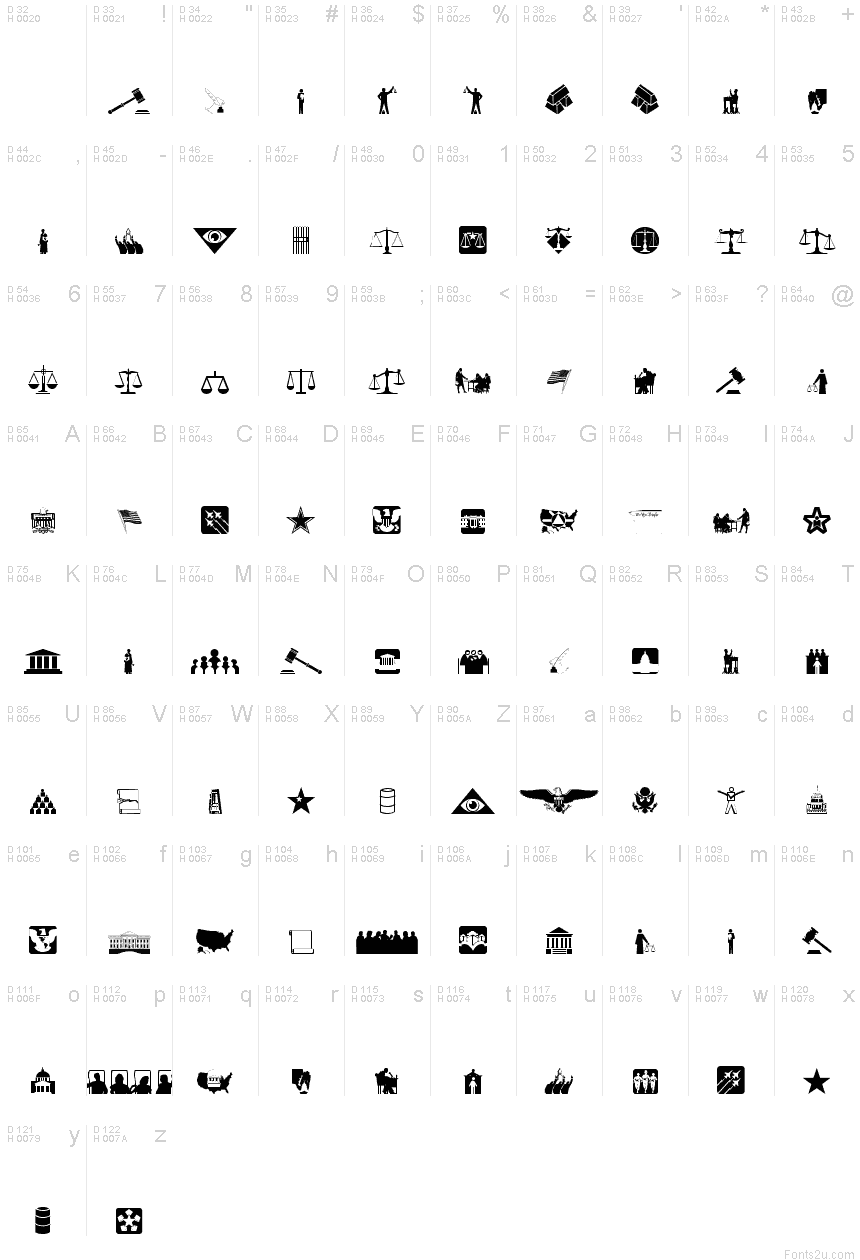
Law & Order
Law & Order font by Iconian Fonts is a free law-themed dingbat font with civic and justice symbols, including court and police-style motifs, an eagle seal, and other official markers. The set has a strong emblematic feel, with framed icons and compact silhouettes that suit legal branding and government-style graphics.
Law & Order works well for law office logos, courthouse notices, security materials, policy documents, badge-style graphics, and decorative chapter breaks. Its formal symbols make it useful when you want a legal or authority cue in posters, websites, certificates, or event signage without using plain text ornaments.